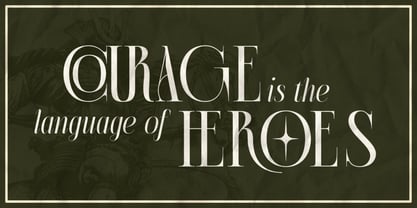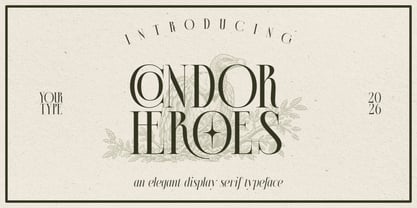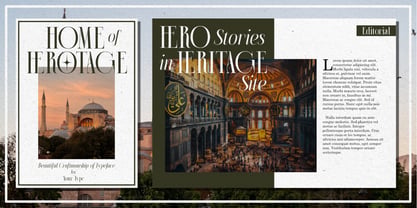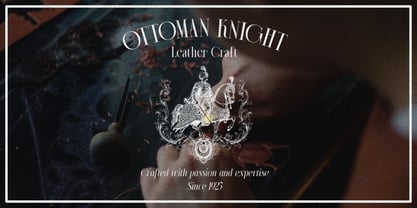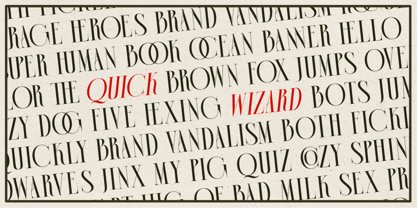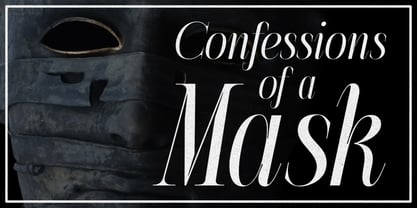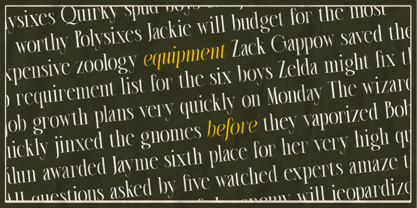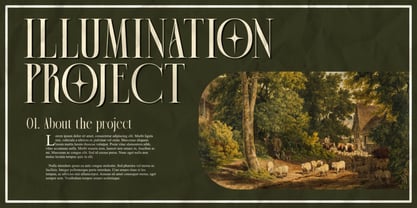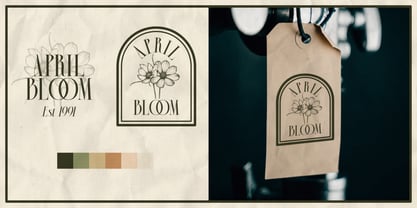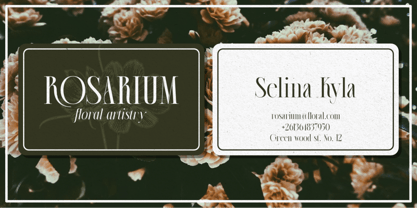
Condor Heroes
Condor Heroes is a refined display serif crafted for designers seeking elegance with a heroic spirit. Drawing inspiration from classical engravings, vintage book typography, aristocratic aesthetics, and legendary tales, this typeface captures the balance between strength and sophistication.
Featuring high-contrast strokes, graceful curves, and distinctive decorative details, Condor Heroes commands attention while maintaining exceptional elegance. The result is a typeface that feels luxurious, timeless, and rich in character.
Ideal for editorial headlines, luxury brands, book covers, wine labels, historical projects, cosmetics packaging, invitations, and premium logo design, Condor Heroes brings a sense of prestige and narrative depth to every composition.
Designed to evoke grandeur, craftsmanship, and enduring beauty, Condor Heroes is more than a typeface—it is a visual statement.